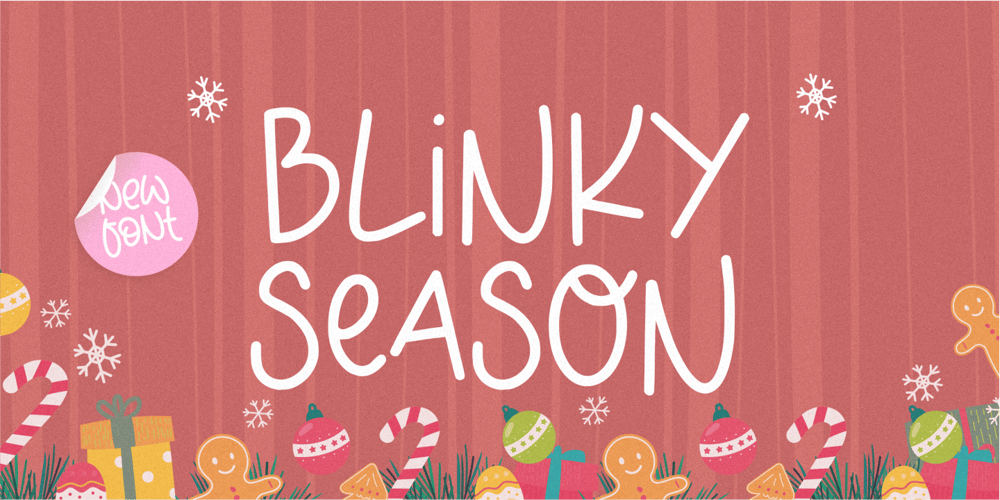
Blinky Season Font Family was designed by Restu Angga and published by Balpirick. Blinky Season contains 1 styles and family package options. Introducing by Balpirick Studio.Proudly Present, BLINKY SEASON Font.BLINKY SEASON is a Monoline Font.Blinky Season is a cute, quirky and fresh handwritten font. It is ideal for holiday-themed greeting cards and for any crafting project that requires a sweet, romantic touch.This font includes TTF and OTF, BLINKY SEASON also multilingual support.Enjoy the font, feel free to comment or feedback, send me PM or email.Thank you!